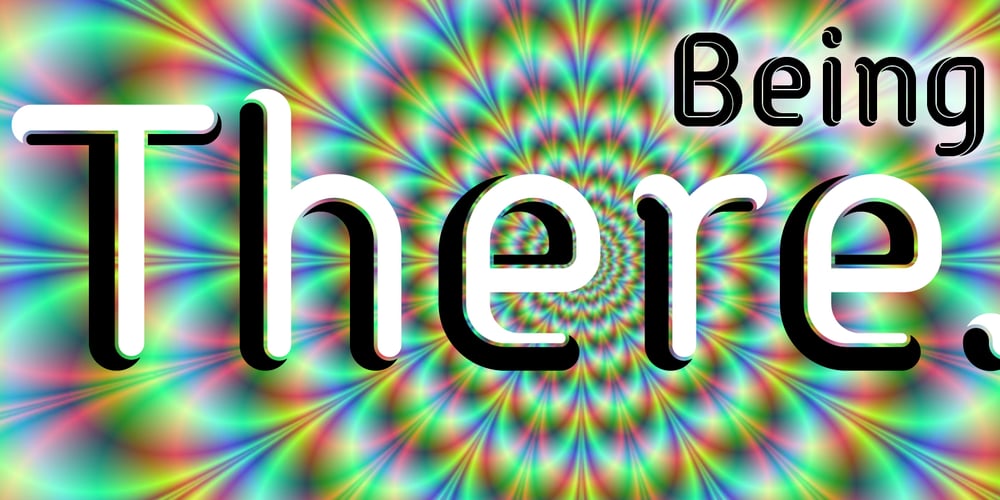
AT Move Nath! Font Family was designed by André Toet and published by André Toet Design. AT Move Nath! contains 1 styles and family package options. NATH !* Is a peculiar typeface. It’s design came by the fascination of Optical Illusions and 3D on a flat surface, like with Holborn and Powerplay. The typeface is named after a girlfriend of André Toet. *Made in the UK, 1974, London (Central School of Art & Design). (Redesigned 2013 by André Toet / Jasper Terra). Concept/Art Direction/Design: André Toet © 2017